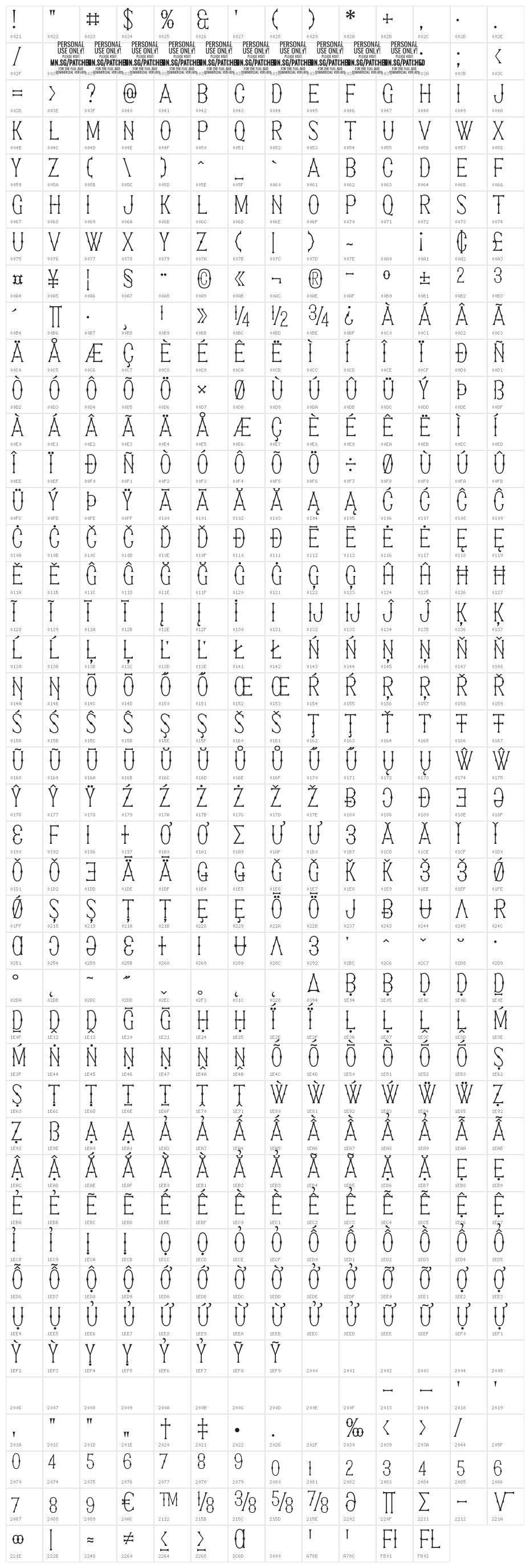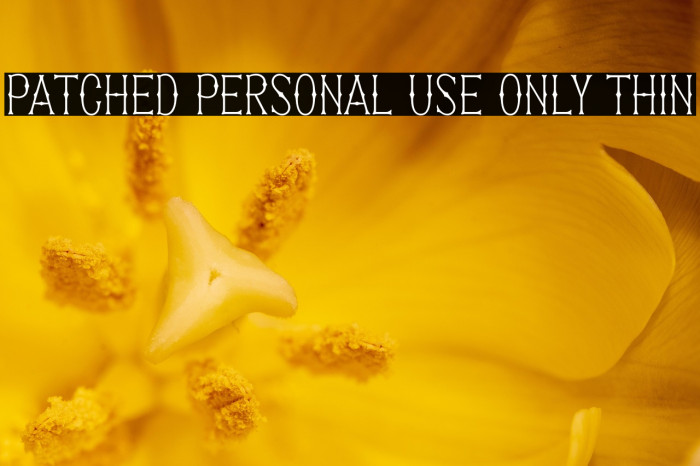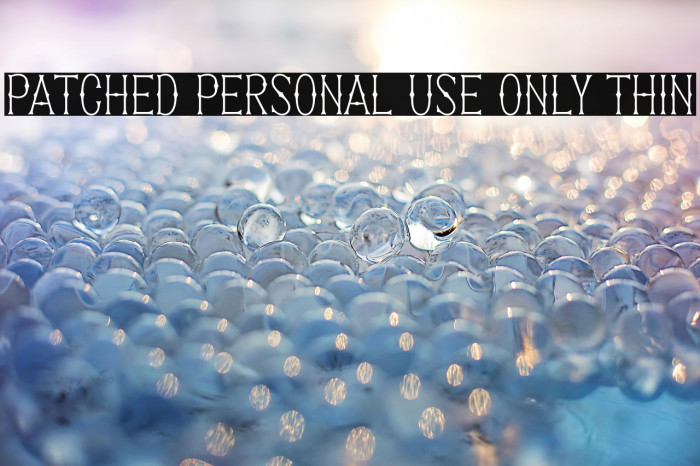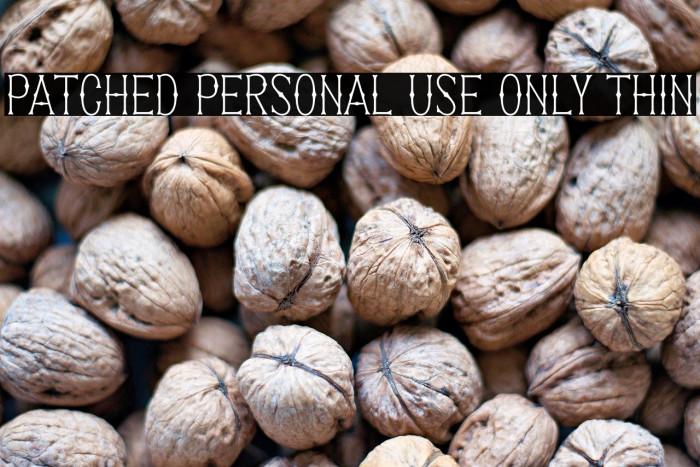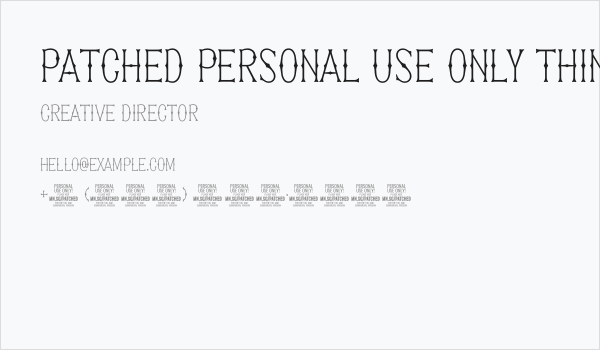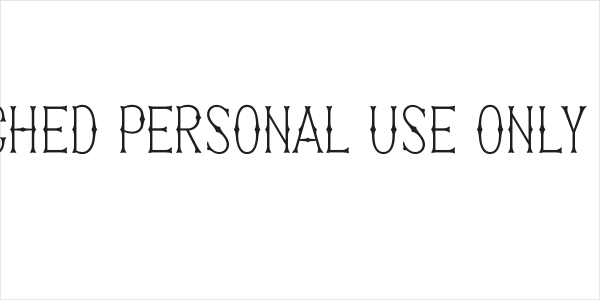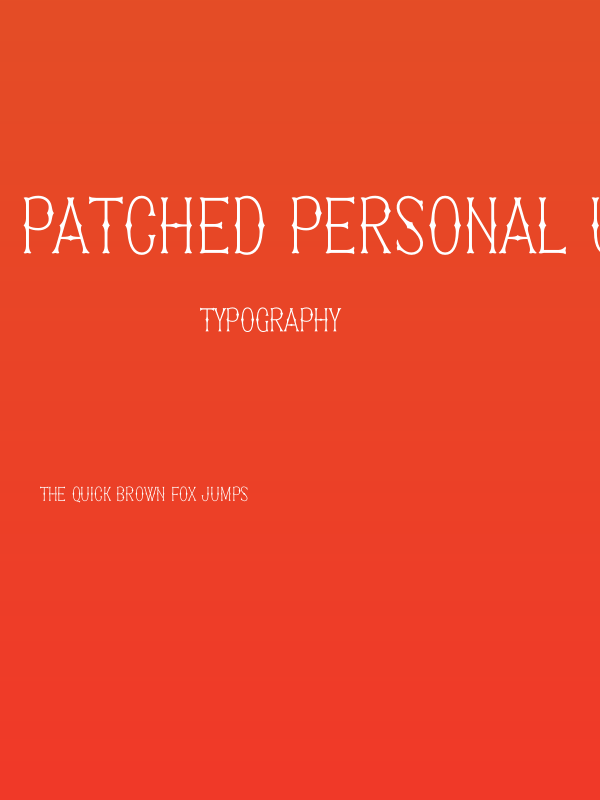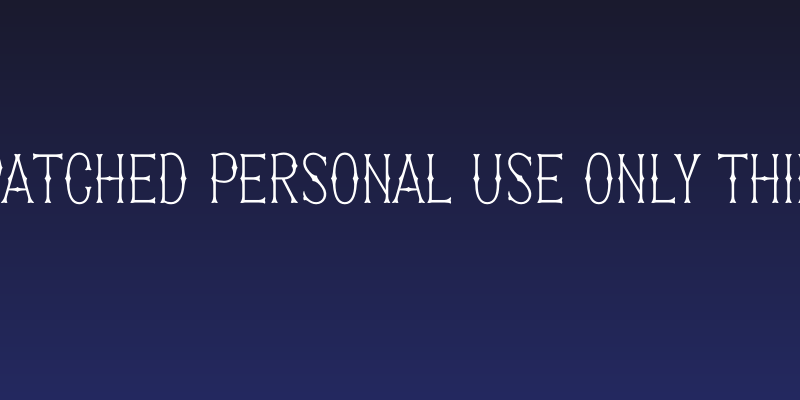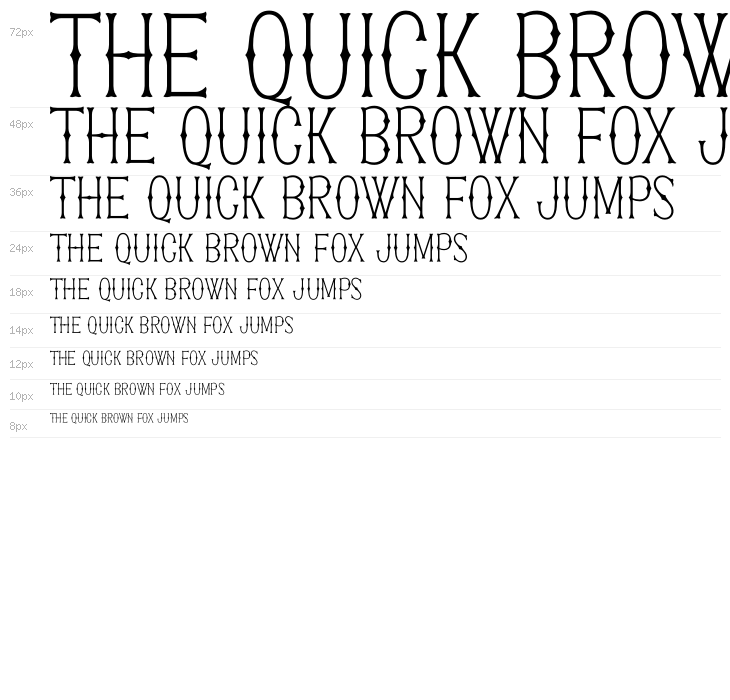
Patched PERSONAL USE ONLY Thin Font
Patched PERSONAL USE ONLY Thin Description
This font features a unique and artistic design with elongated, thin strokes and sharp, pointed serifs. The characters have a distinct, hand-drawn appearance, giving them a whimsical and slightly gothic feel. The uppercase letters are tall and narrow, while the lowercase letters maintain a consistent style, enhancing the font's cohesive look. The numbers and special characters are designed with the same attention to detail, ensuring uniformity across all glyphs. This font's intricate design makes it stand out, suitable for creative projects that require a touch of elegance and flair.